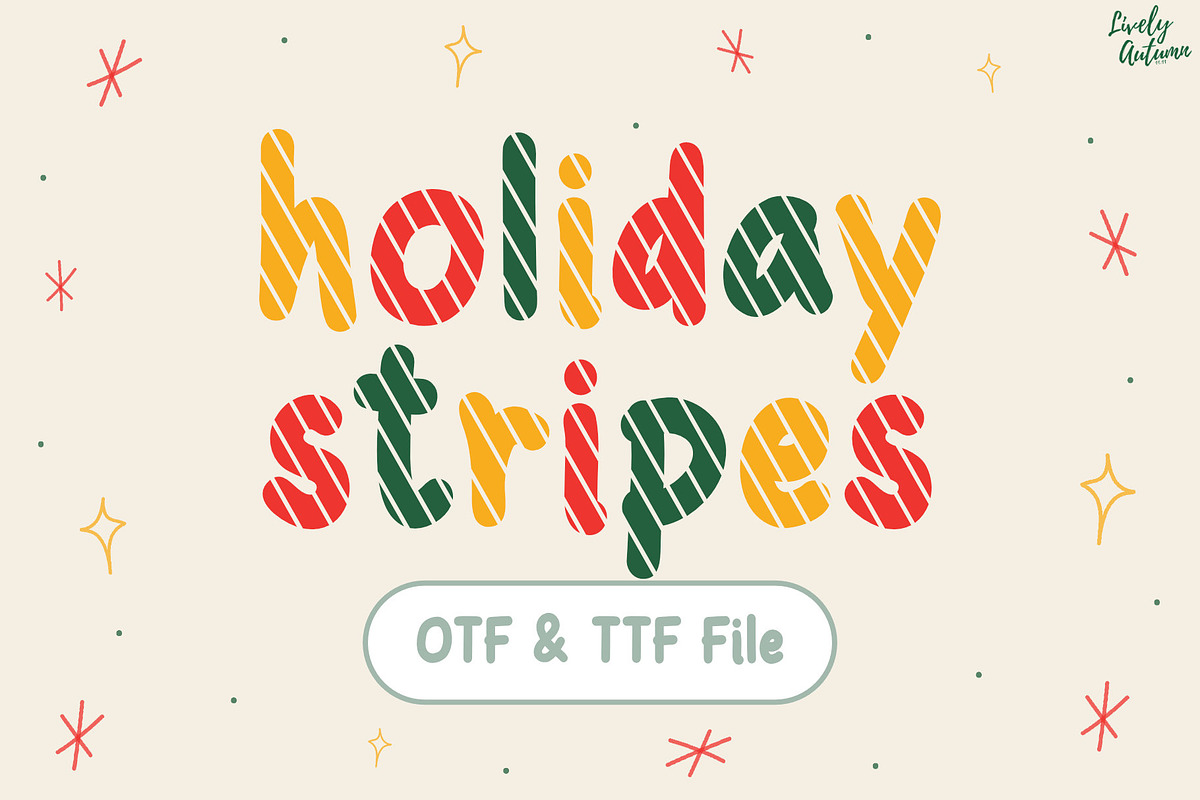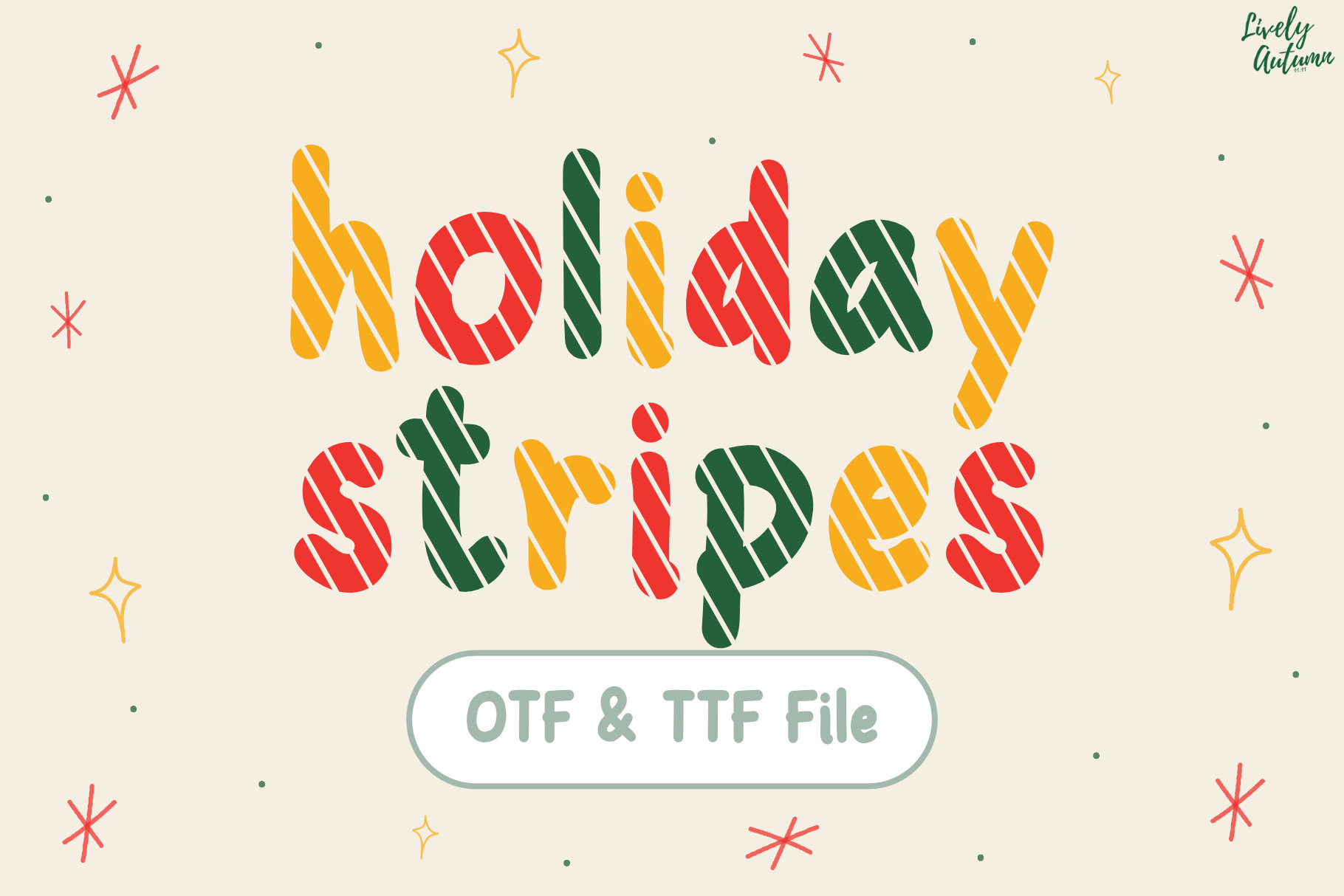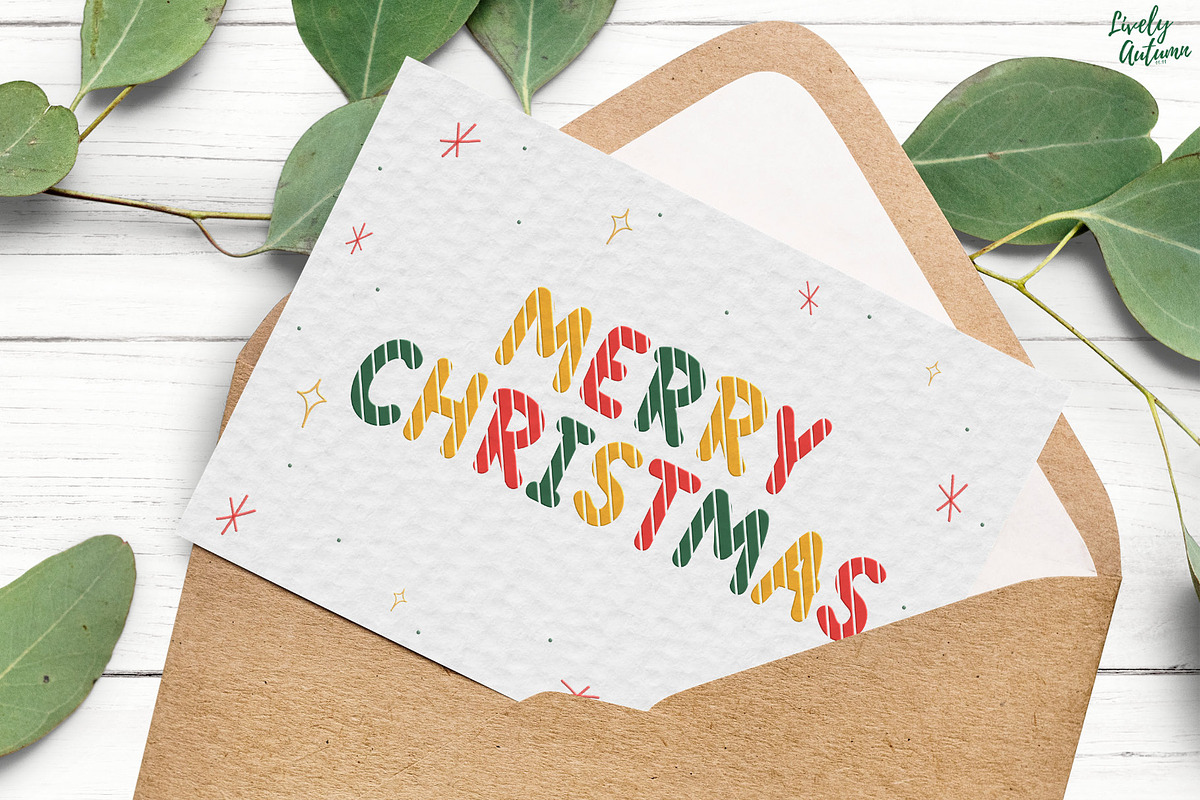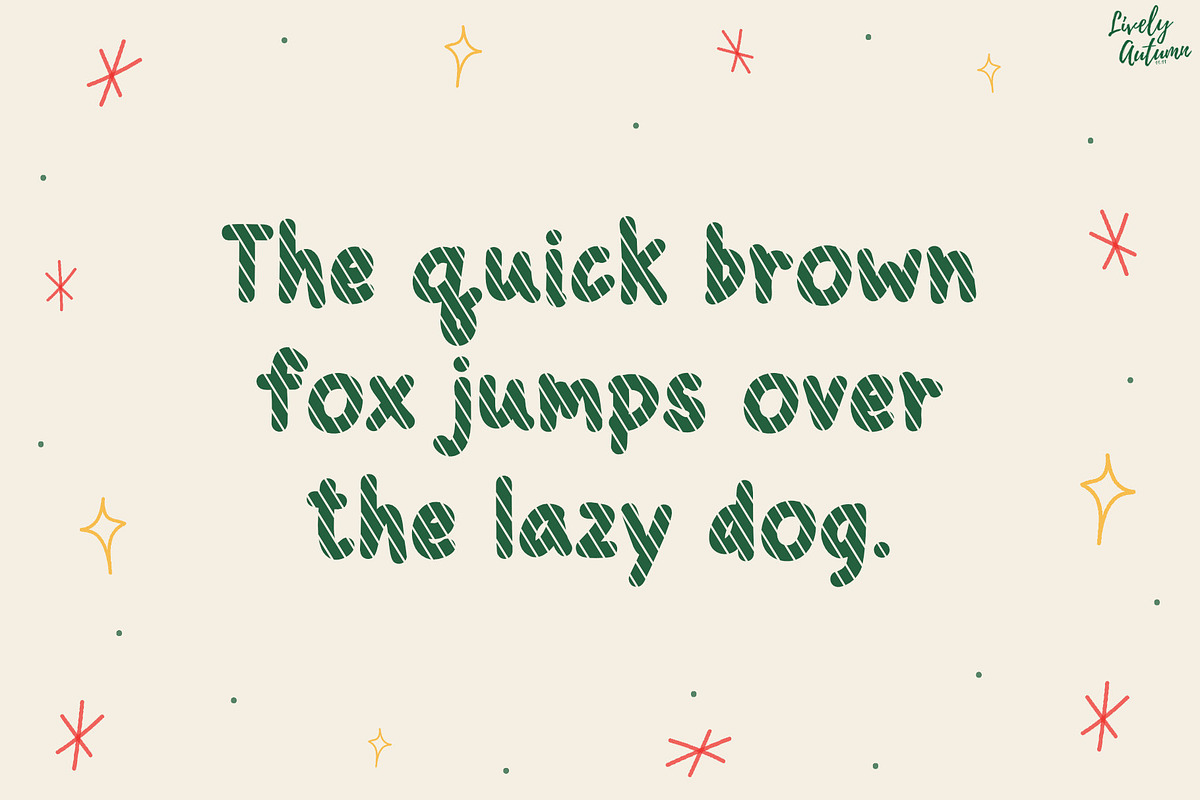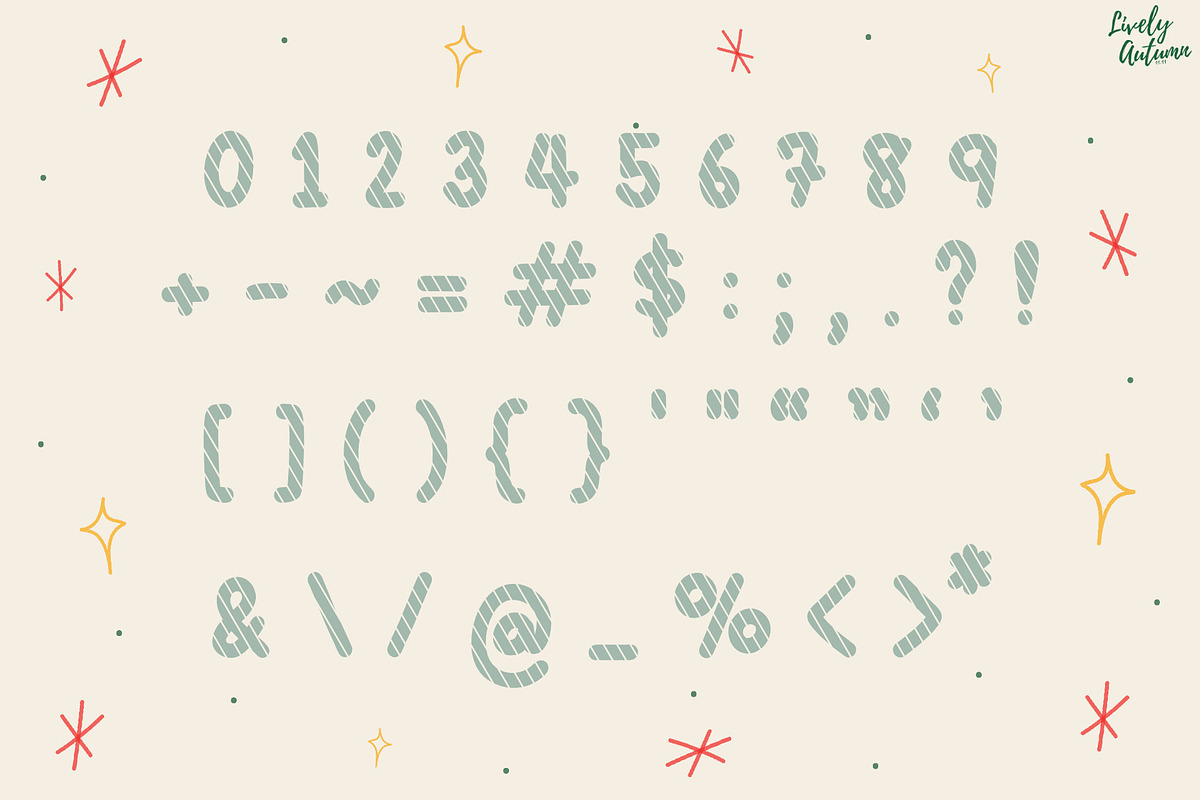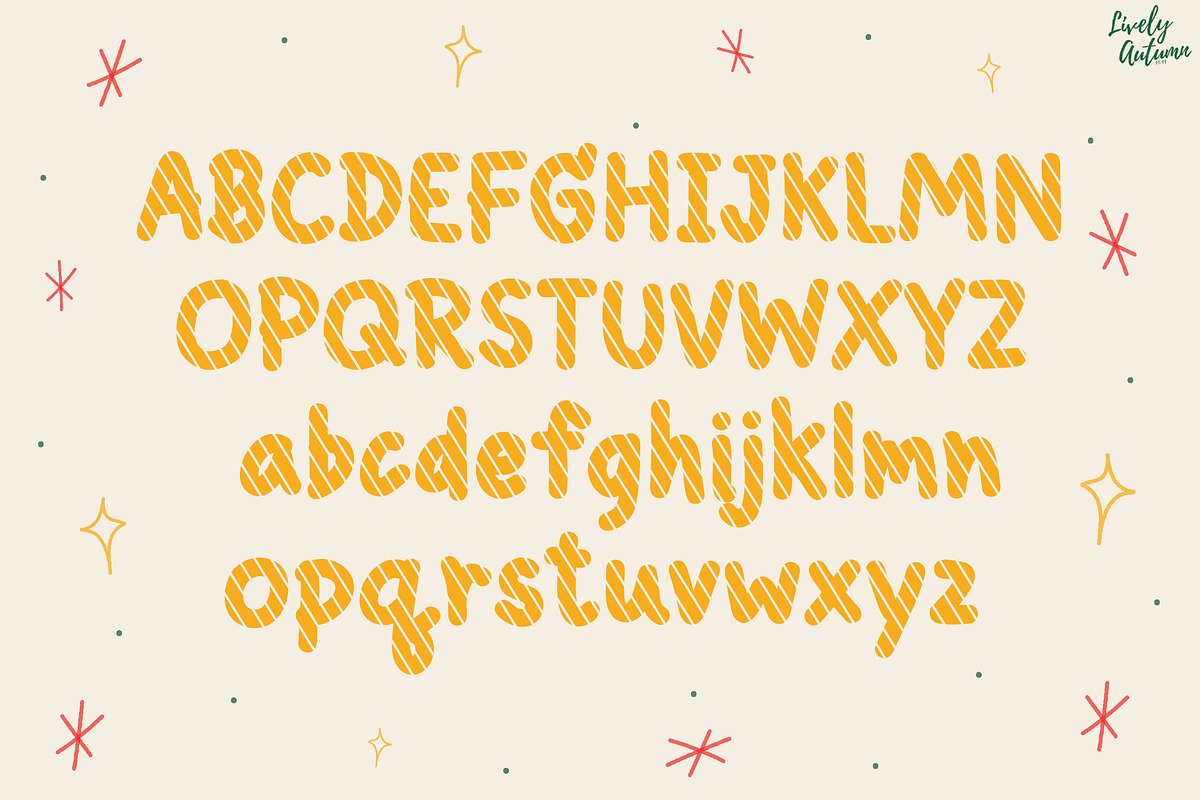
Holiday Stripes | Handwriting font
Holiday Stripes Font is a sans-serif, handwritten font with a striped cut-out pattern. Perfect for your personal projects and various projects. From invitations to posters, social media graphics, journals, and much more.